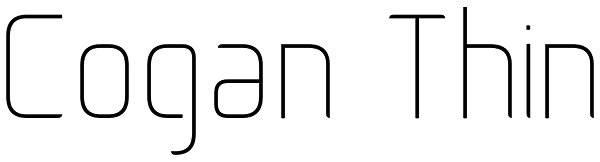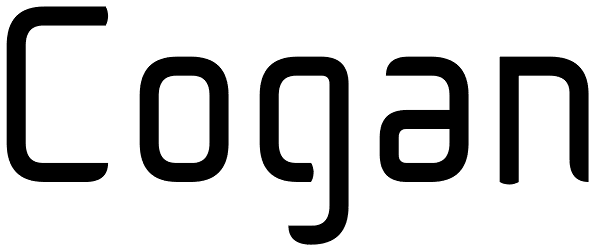
Cogan
Cogan was especially designed by Leandro Ribeiro. Created in 2014, this font family has been designed to serve sectors like financial services, modern industries, business and many other activities who needs a modern aspect in their communication...